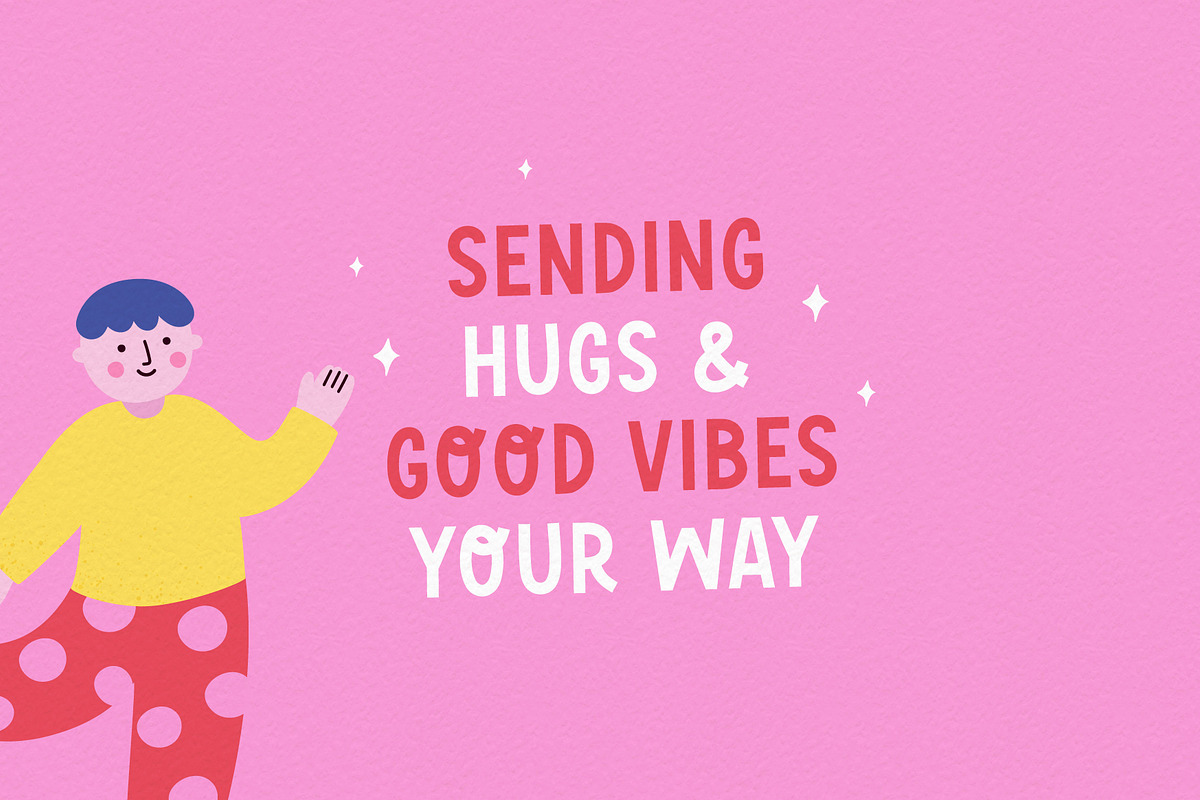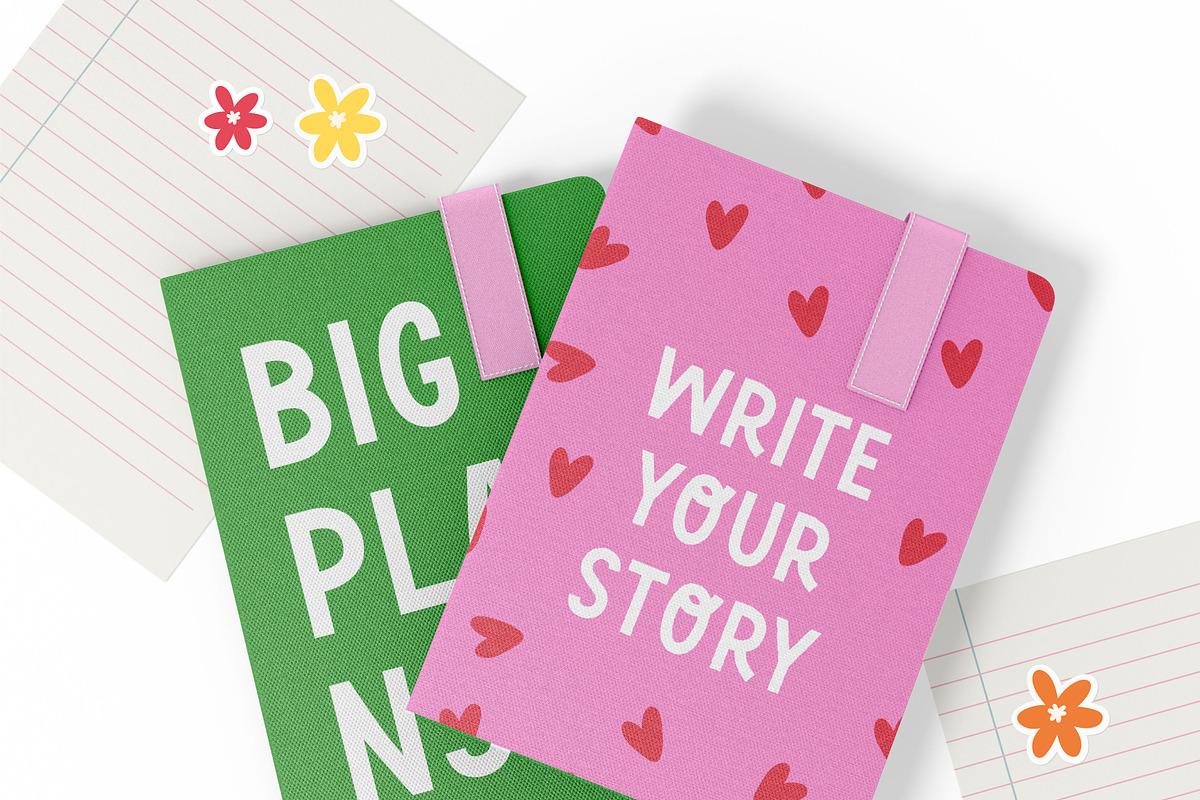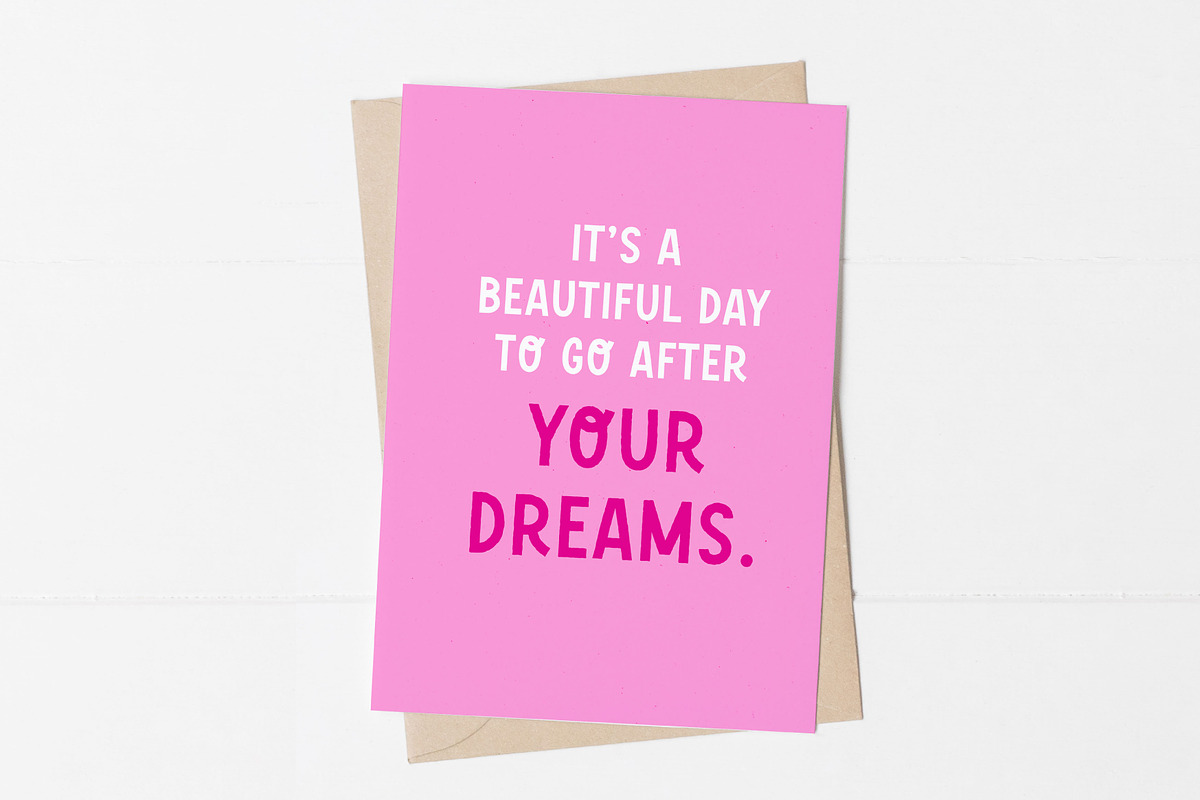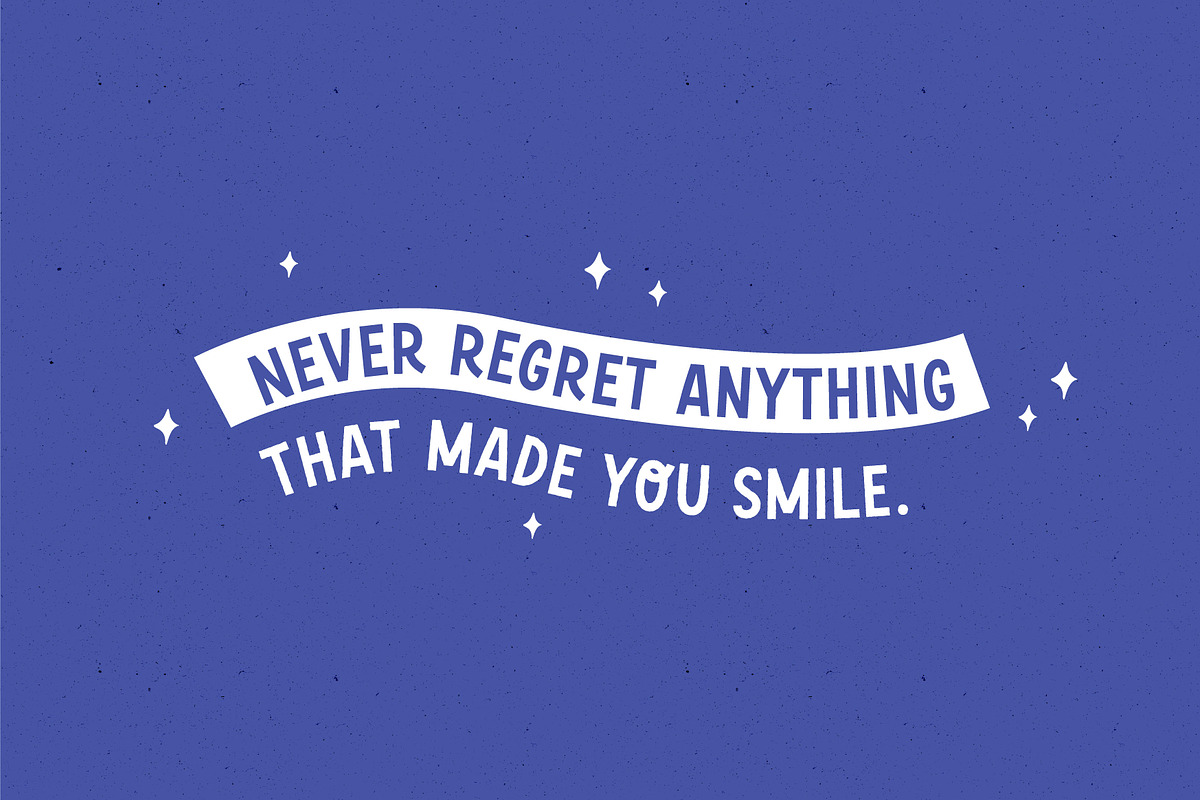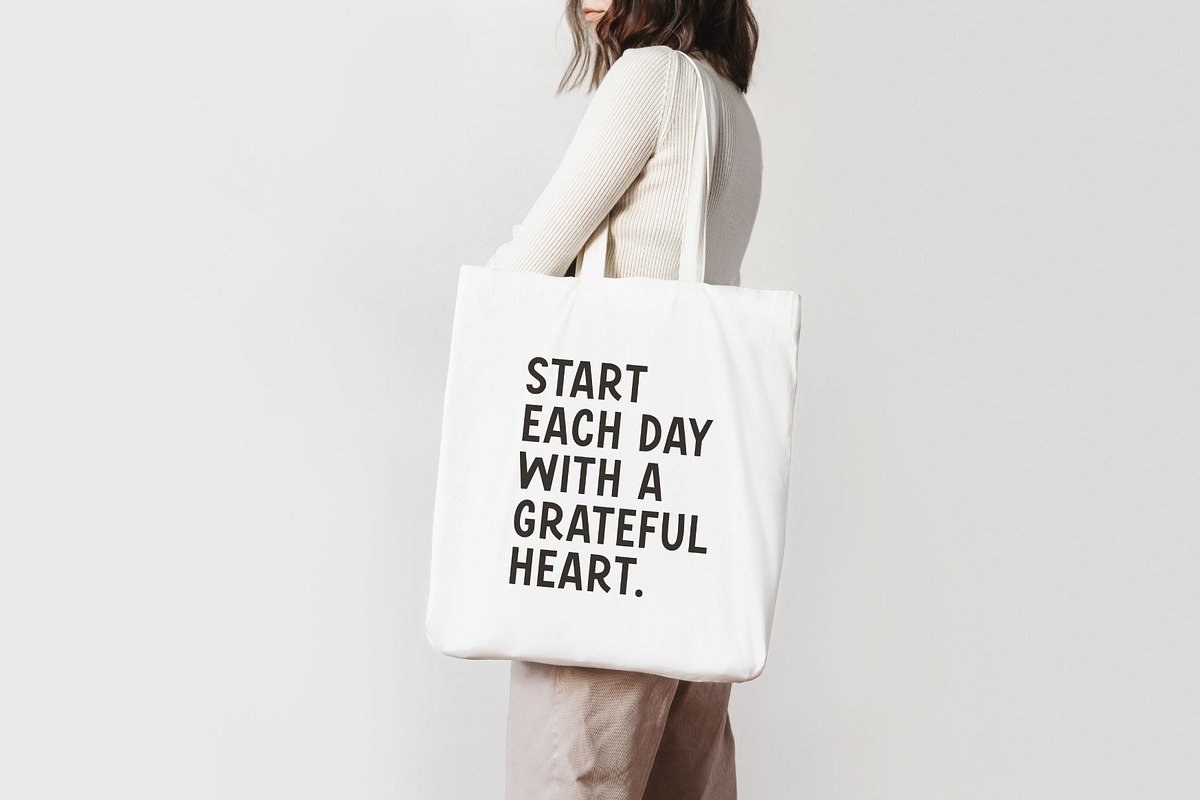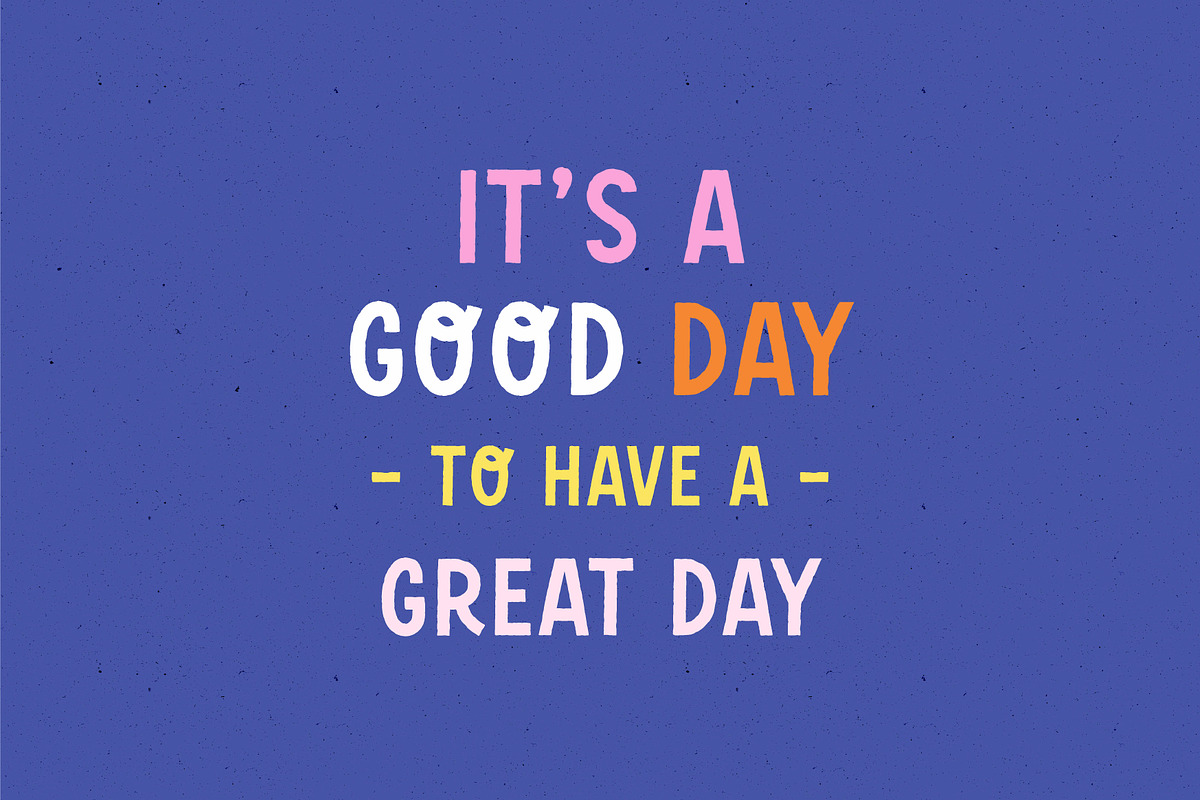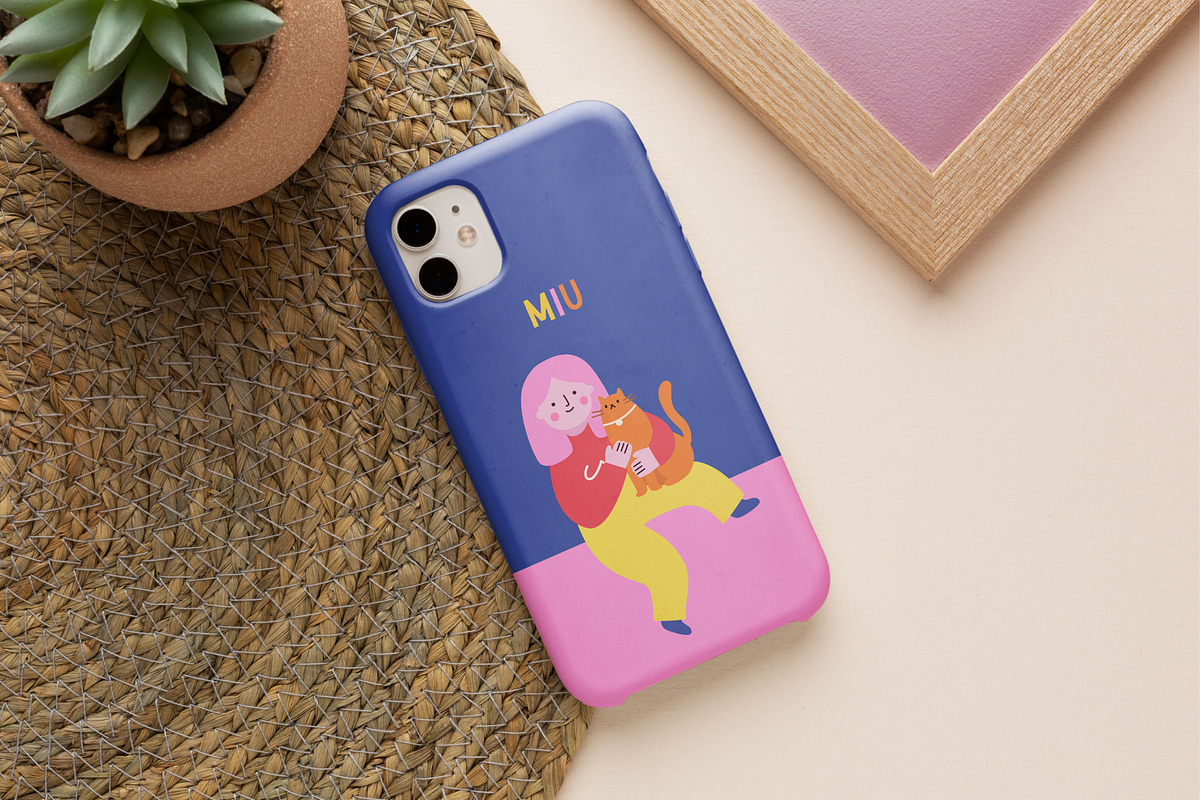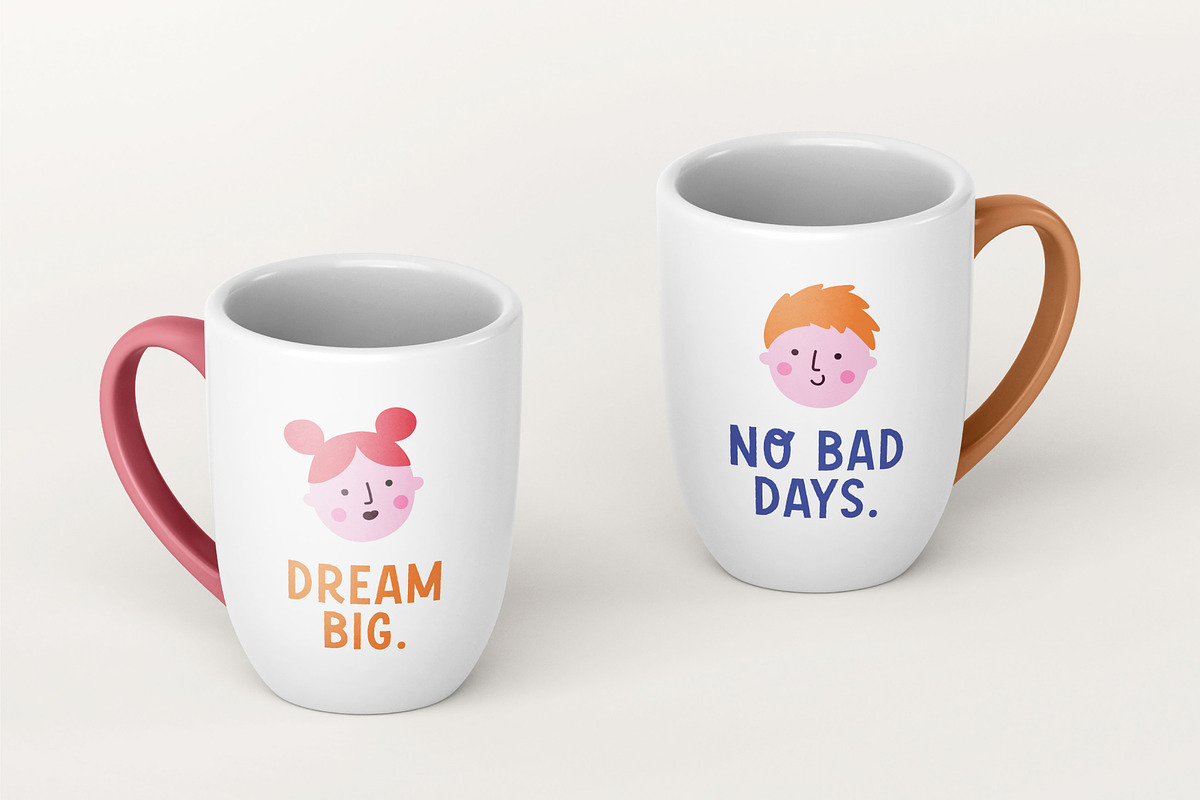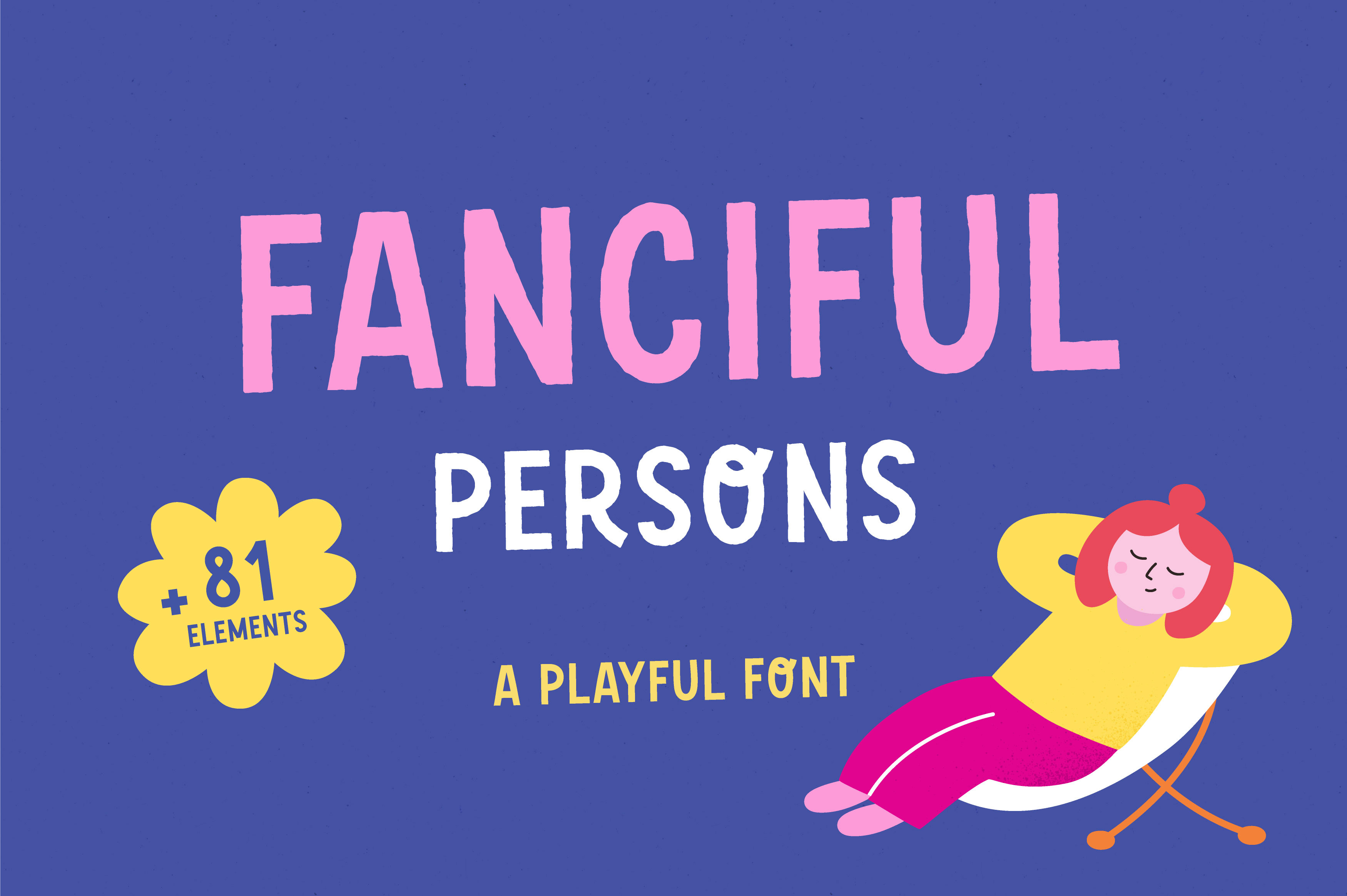
Fanciful persons | Playful font
Use for logos, quotes, invitations, greeting cards, journals, posters, baby clothing and more. This font will make your design looks great and fun!